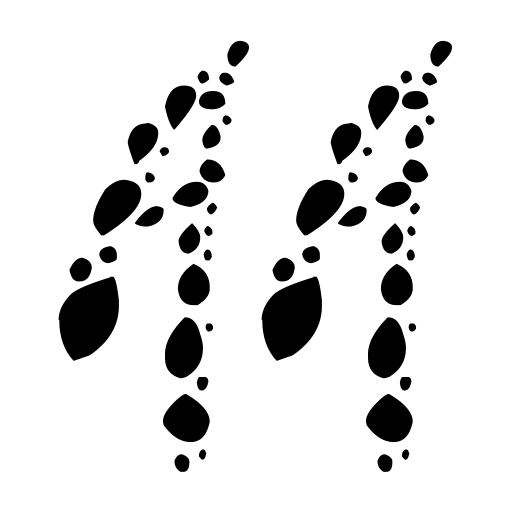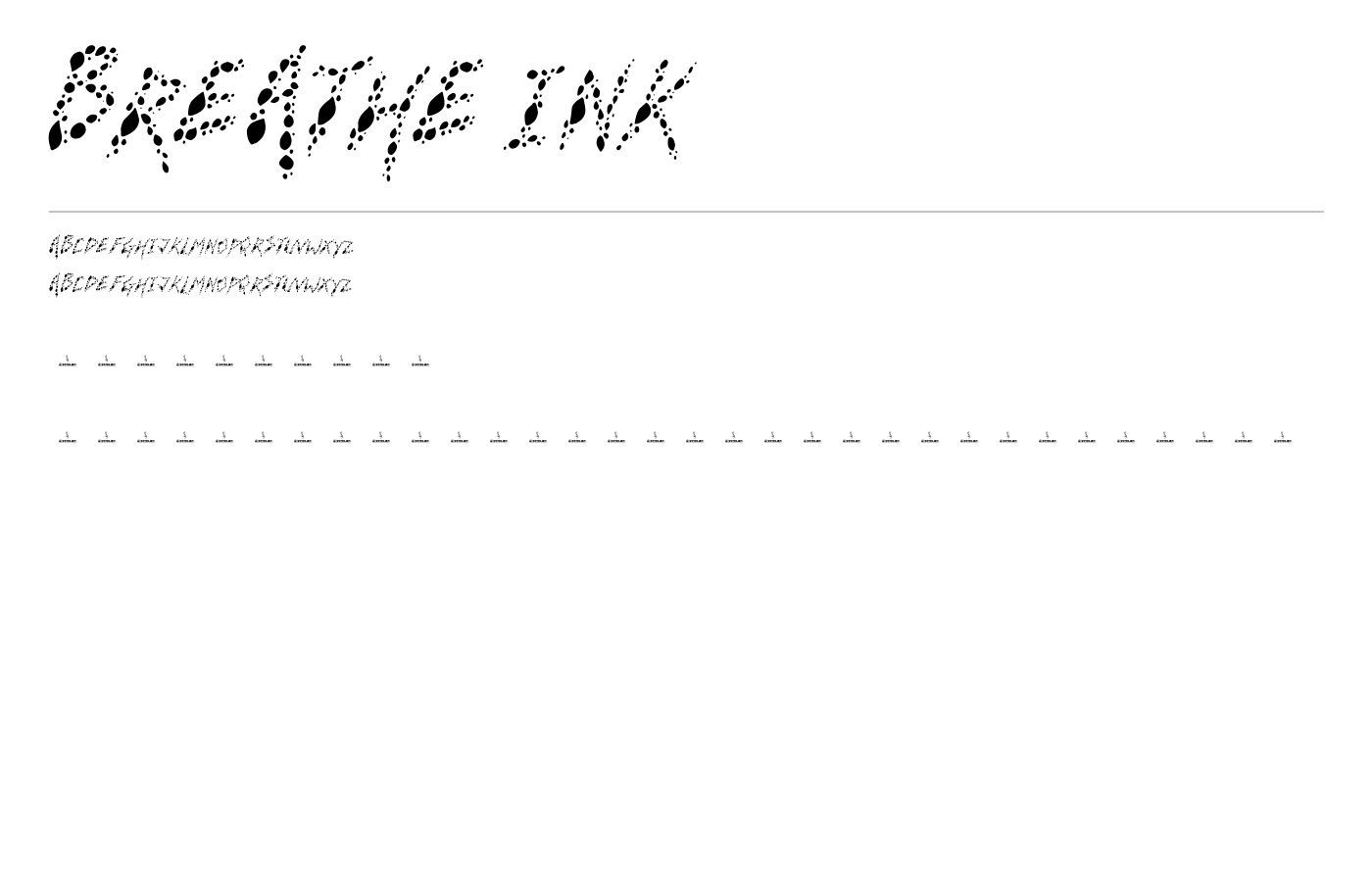
Breathe Ink is a unique, playful script font that mimics the look of ink splatters forming handwritten letters. With its irregular, spotted strokes and organic shapes, it conveys a lively and artistic vibe perfect for creative projects, eye-catching logos, or posters seeking a dynamic and informal touch. This font is best suited for display use where its bold personality can shine without sacrificing readability.
Breathe Ink Font
About Breathe Ink Font
| Font family | Breathe Ink Font |
| Designer | Jonathan S. Harris |